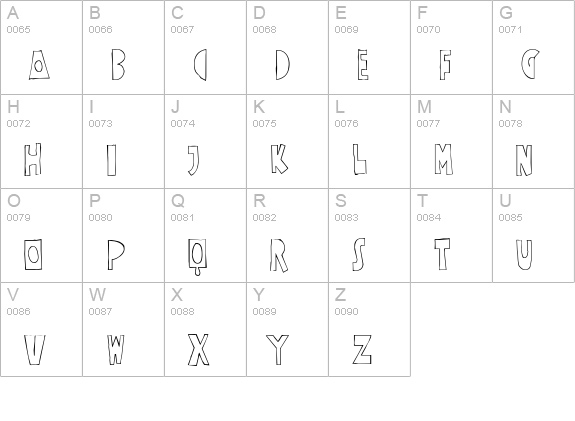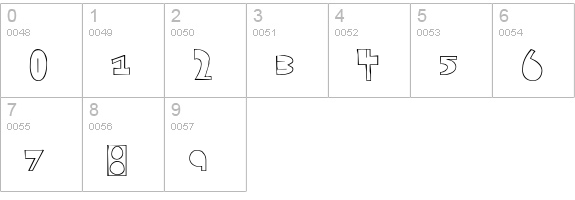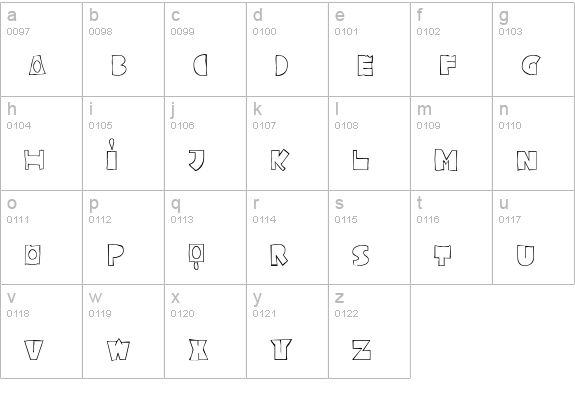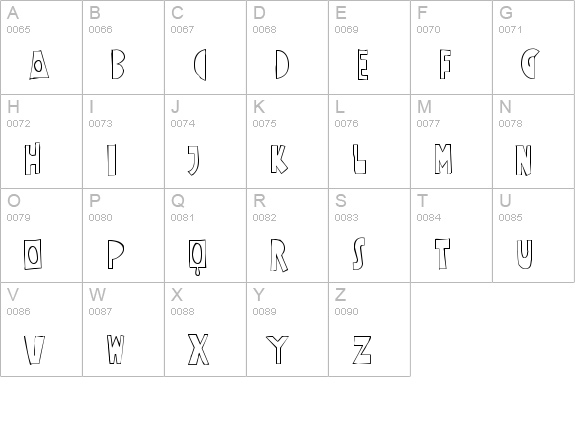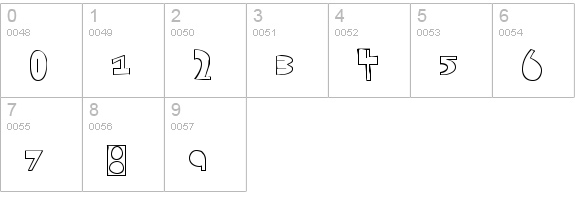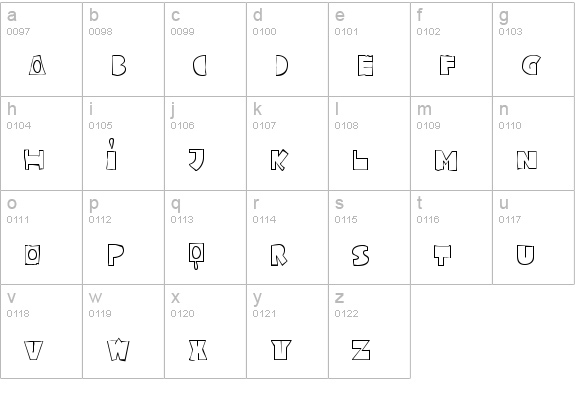
Coriander font is a versatile and elegant typeface that exudes sophistication and charm. Its modern yet timeless design makes it perfect for a wide range of projects, from branding to editorial design. The sleek lines and graceful curves of Coriander font bring a sense of refinement to any text. What's even better is that Coriander font is available for free download at FontsMarket.com. This means you can easily access this stunning font and elevate your designs without any cost. Don't miss out on the opportunity to add Coriander font to your collection and enhance your creative projects with its beauty and grace. Download it today and see the difference it makes in your work!